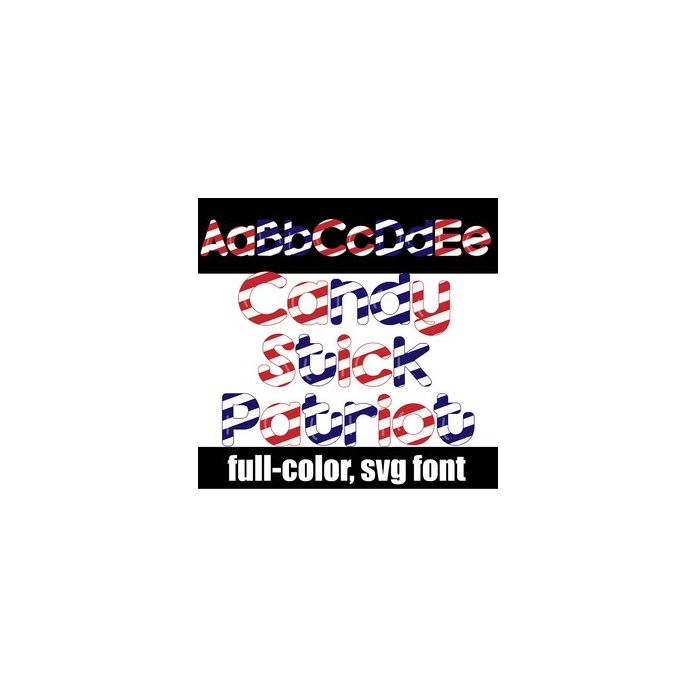
This full-color font features bold lettering in candy stripes of red, white, and blue. There is a secondary alt case for both upper and lower that you can access through Silhouette's glyph map.